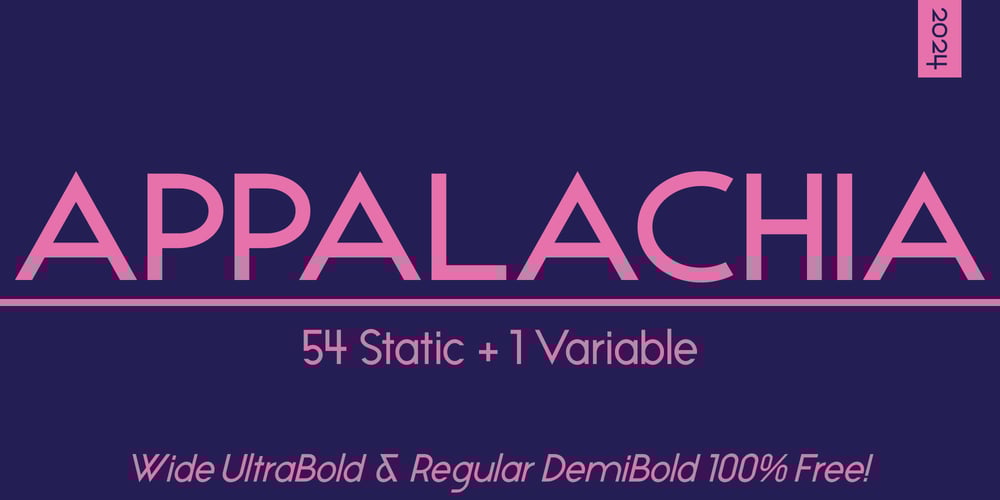
Appalachia Font Family was designed by published by Sehr Type. Appalachia contains 55 styles and family package options. Appalachia was inspired by several type families designed during the Weimar Republic, a period of social and intellectual prosperity immediately preceding the rise of fascism in Prewar Germany.Looking at the fonts that served as inspiration, we noticed a great deal of them had features that would more or less disqualify them from practical use in a modern setting.Attributes like low x-heights, inconsistently cut terminals, and odd ratios were all present. Yet all these fonts had a certain zhuzh that fascinated us to the extent of attempting to replicate them in a more practical manner.In a more technical sense, Appalachia is a low-contrast, geometric, sans-serif typeface. And when we say low-contrast, we meant it… we tried for months to get it to a perfect 1:1 contrast ratio but are pretty sure that’s an impossible feat.